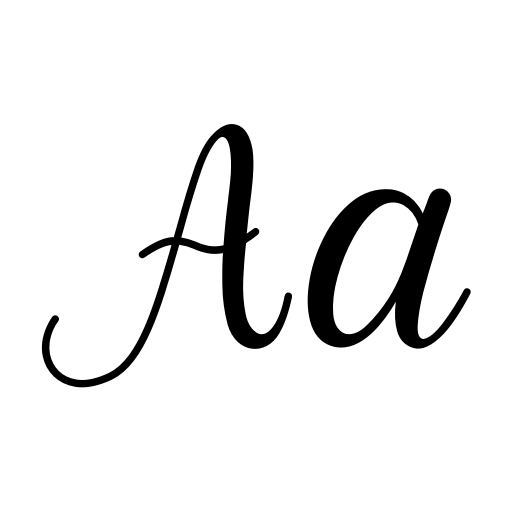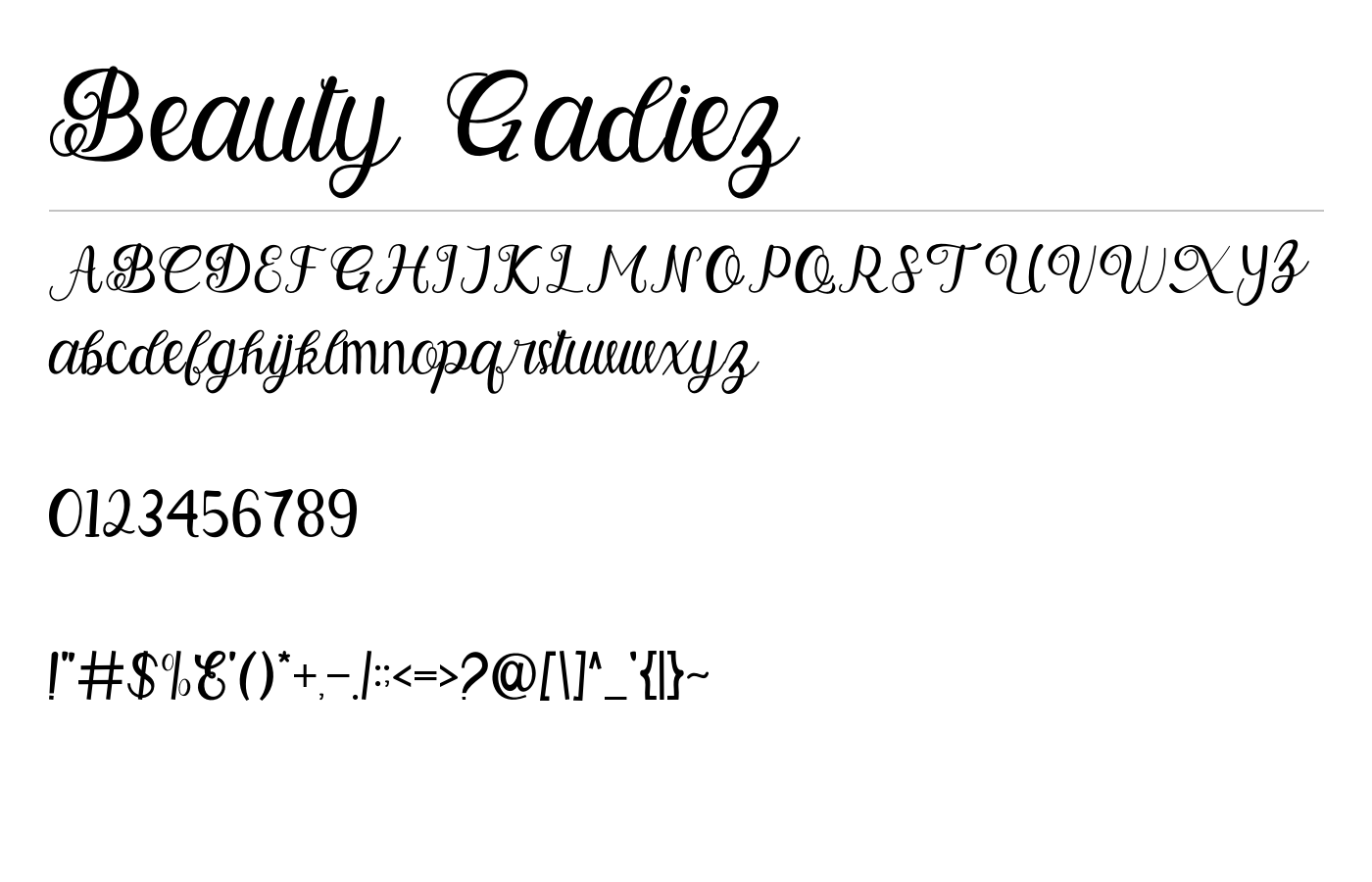
Beauty Gadiez is an elegant script font characterized by its flowing, cursive letterforms with playful swashes and moderate stroke contrast. Its delicate, decorative style with both uppercase and lowercase characters makes it ideal for feminine, beauty, and luxury branding that seeks a sophisticated yet approachable vibe. Perfect for logos, invitations, and headlines, Beauty Gadiez adds a graceful, stylish touch that captures attention while maintaining readability.
Beauty Gadiez Font
About Beauty Gadiez Font
| Font family | Beauty Gadiez Font |
| Designer | Alfin Ridhowi |